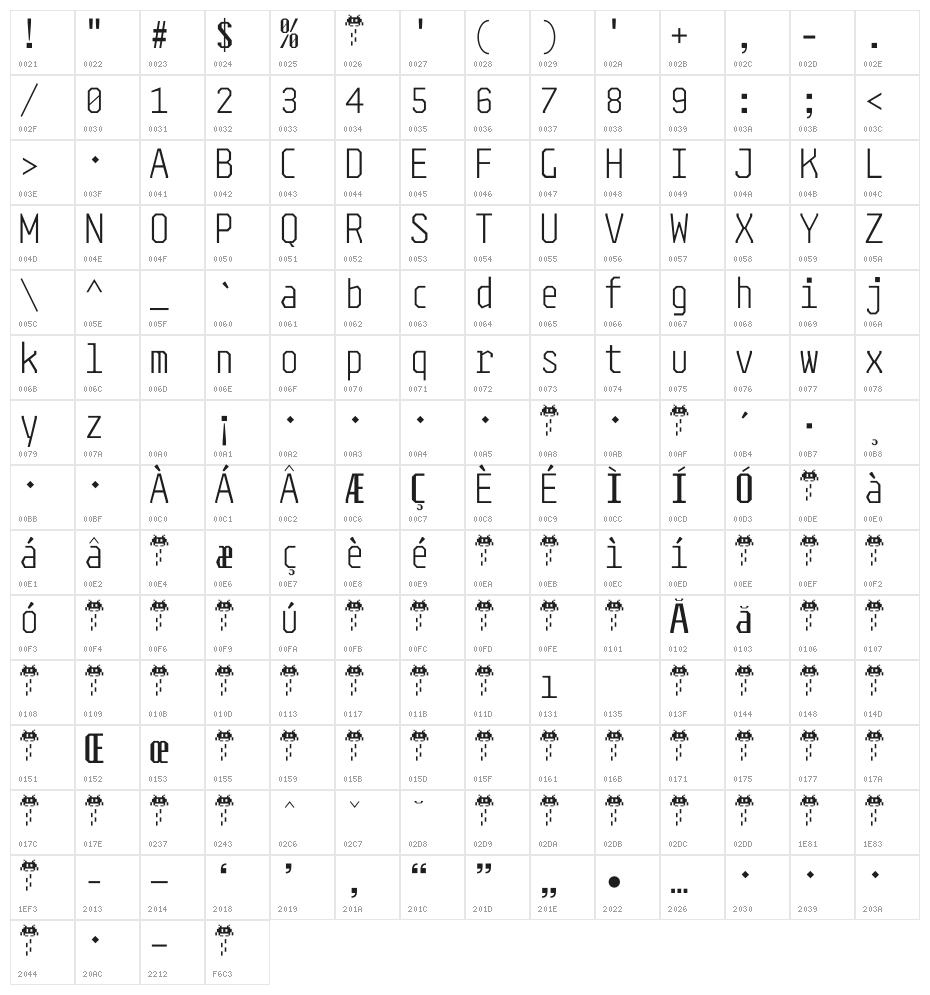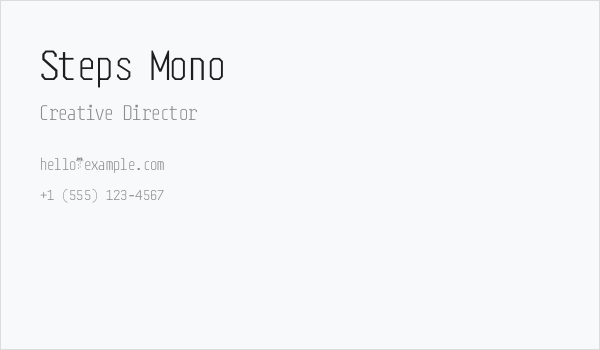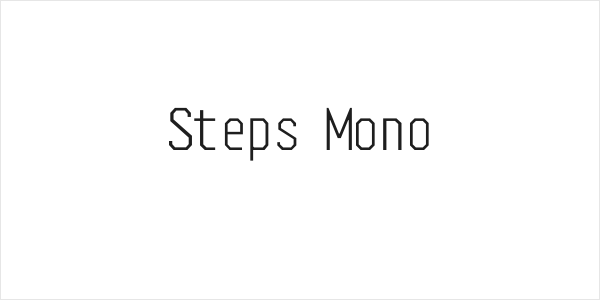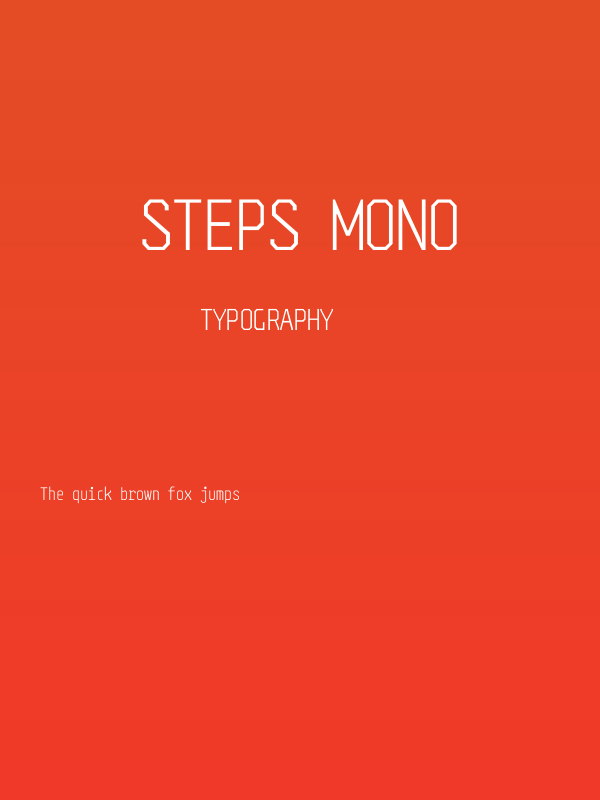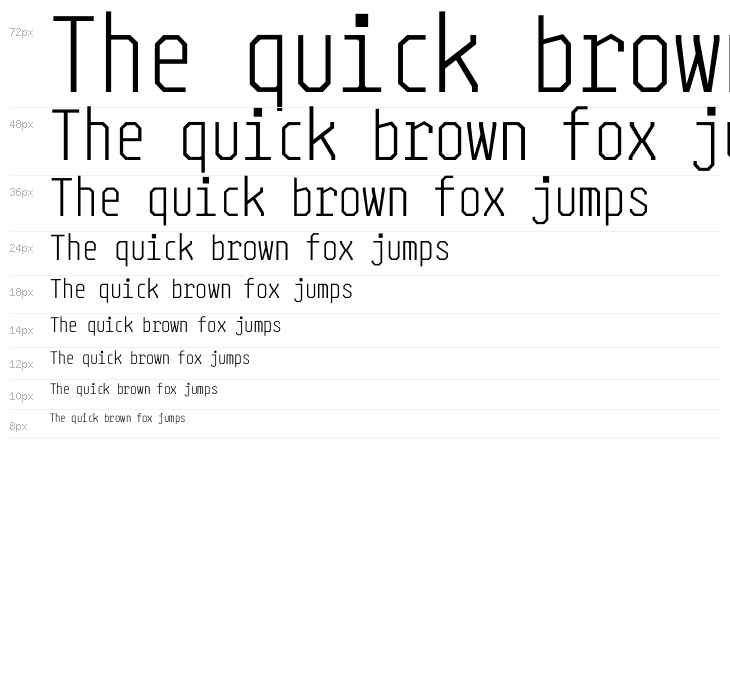
Steps Mono Font
Steps Mono Description
This font features a monospaced design with a geometric and technical appearance. Each character is uniformly spaced, giving it a structured and orderly look. The strokes are consistent in width, contributing to a clean and modern aesthetic. The uppercase letters have a distinct angularity, while the lowercase letters maintain a similar geometric style. The numerals and special characters are designed to match the overall technical theme, making this font suitable for coding, technical documents, or any project requiring a precise and uniform typeface.
| Use Case | Coding, Technical documents, Digital interfaces |
| Proposed Projects | Ideal for coding, technical documentation, digital interfaces, and modern branding. |